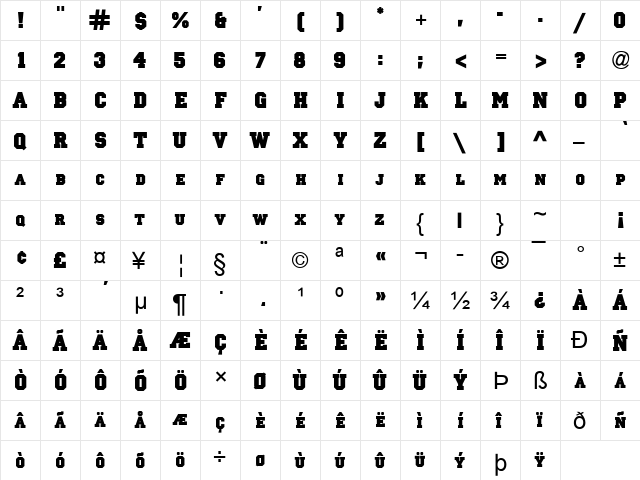
Princeton solid Normal
Design Context for Princeton solid Typeface
Princeton solid offers clean, dependable letterforms without strong stylistic allegiance, making it a practical choice for designers who need flexibility.